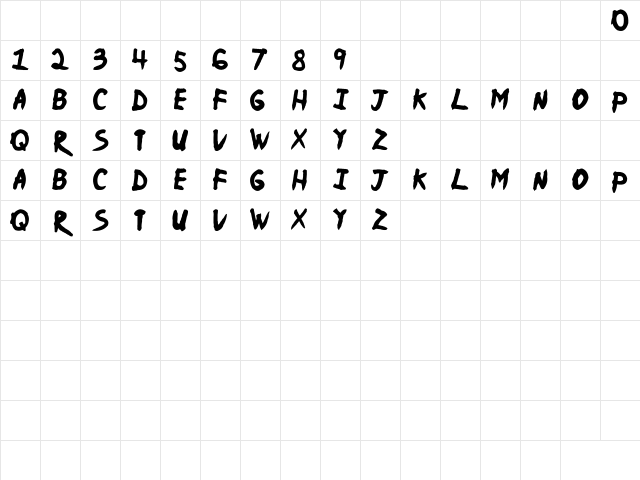
Ninja Naruto Regular Free Font
Ninja Naruto Regular
Foundry: The Risen Realm and Keiichi Anime Forever
Designer: sk89q
Design Context for Ninja Naruto
Ninja Naruto is a composed and adaptable typeface that performs quietly and consistently across a wide range of design contexts.